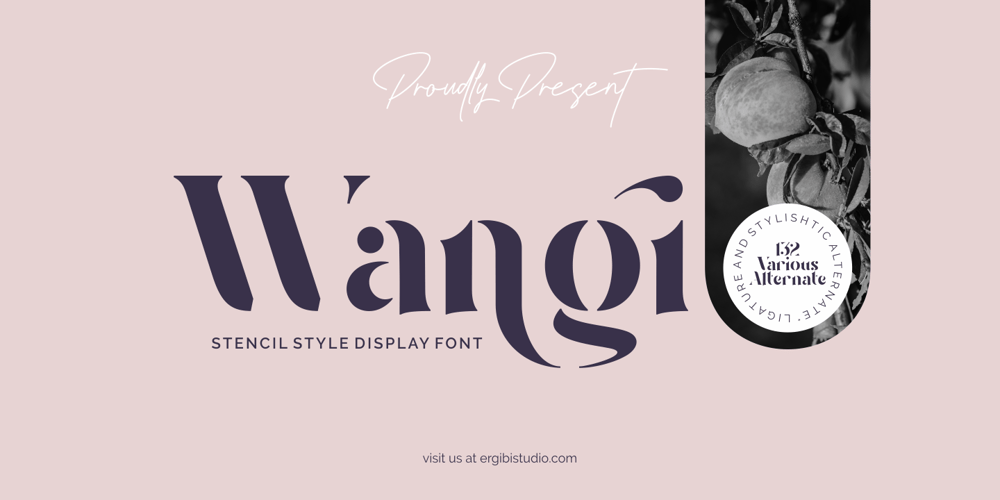
Wangi Font Family was designed by Riyadh Rahman and published by Ergibi Studio. Wangi contains 1 styles and family package options. Wangi – Display Font, a stencil style typeface perfect for any type of logo, packaging, fashion, magazine, etc. Mantovans is cleanly designed. This is the best choice with more than 130+ alternative characters, so you can show more variations for the completion of your designIf there is a problem, question, or anything about my fonts, don’t hesitate to ask!Big Thanks Ergibi Studio